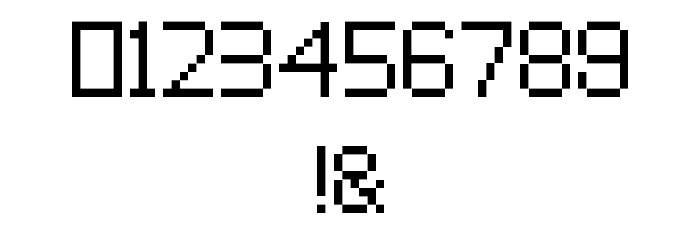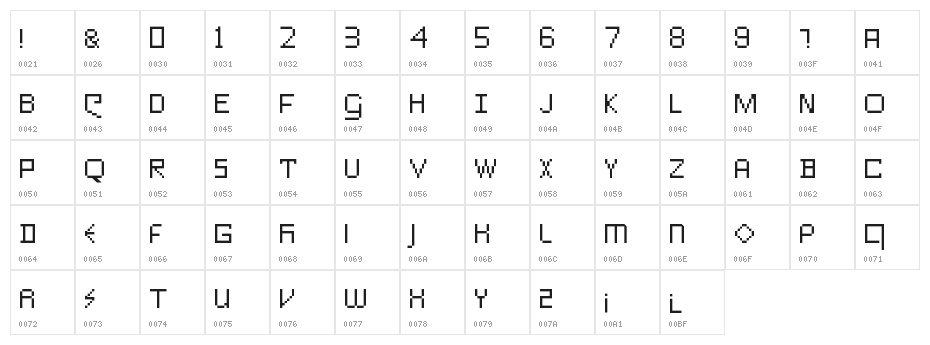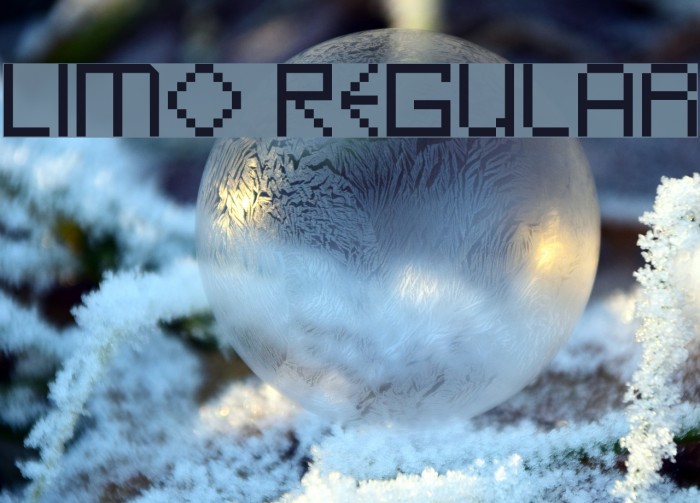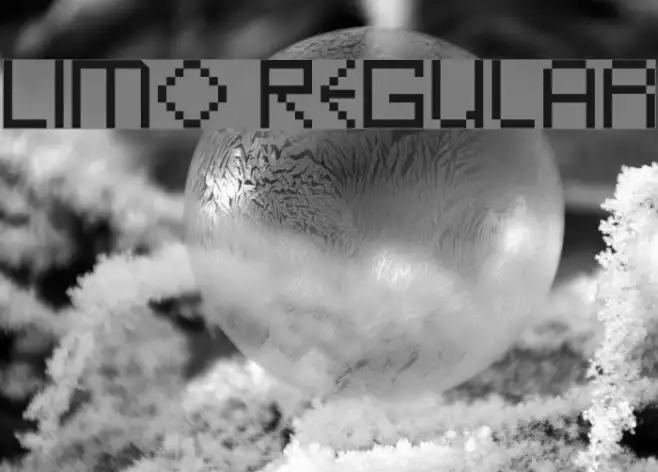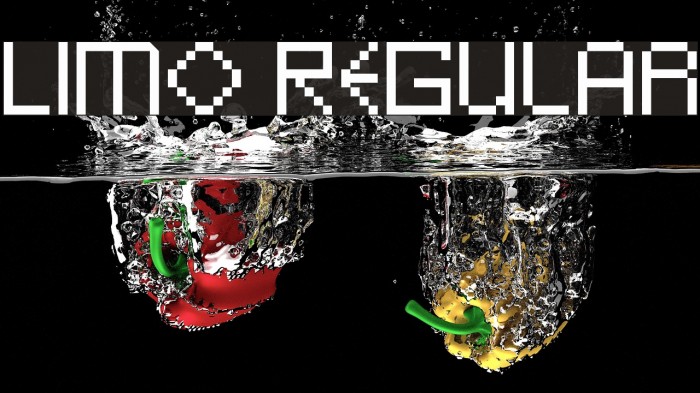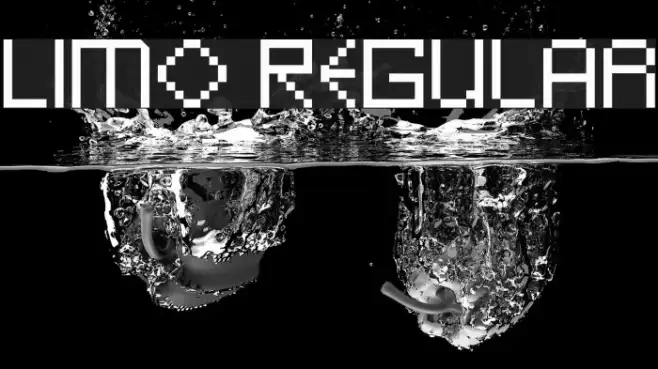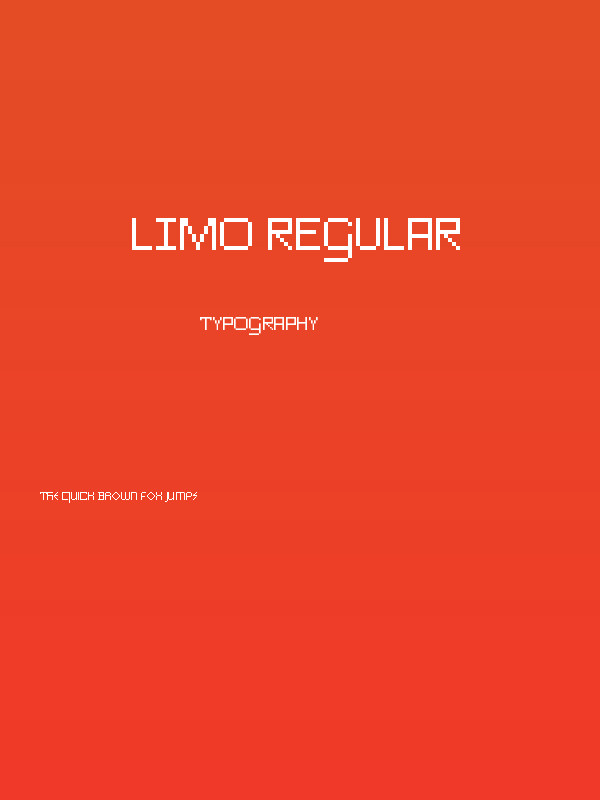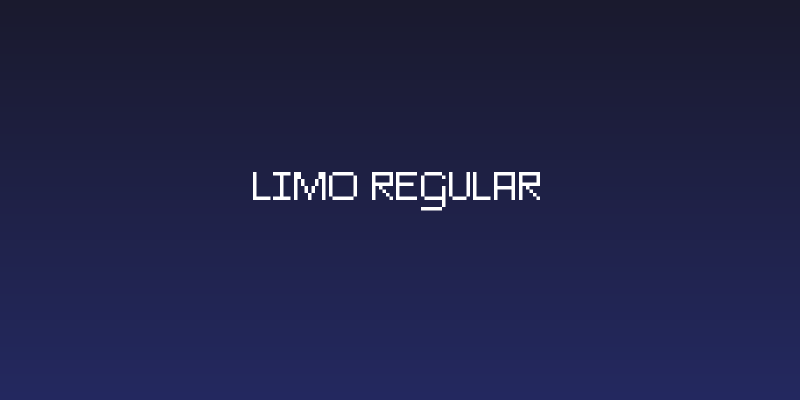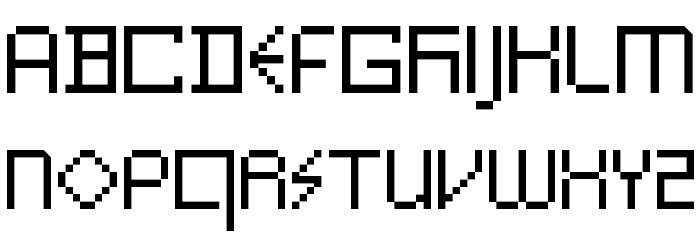
Limo Regular Font
Limo Regular Description
This font features a geometric, pixelated design that evokes a retro, digital aesthetic. Each character is composed of square blocks, giving it a distinct, grid-like appearance reminiscent of early computer graphics or video game text. The uppercase and lowercase letters maintain a consistent height, contributing to a uniform and cohesive look. The numerals and special characters follow the same blocky style, ensuring visual harmony across all elements. This font's unique style makes it particularly suitable for projects that aim to capture a vintage tech or gaming vibe.
| Use Case | Logos, Headlines, Digital Art |
| Proposed Projects | Ideal for video game design, retro-themed posters, digital art projects, and tech-oriented branding. |